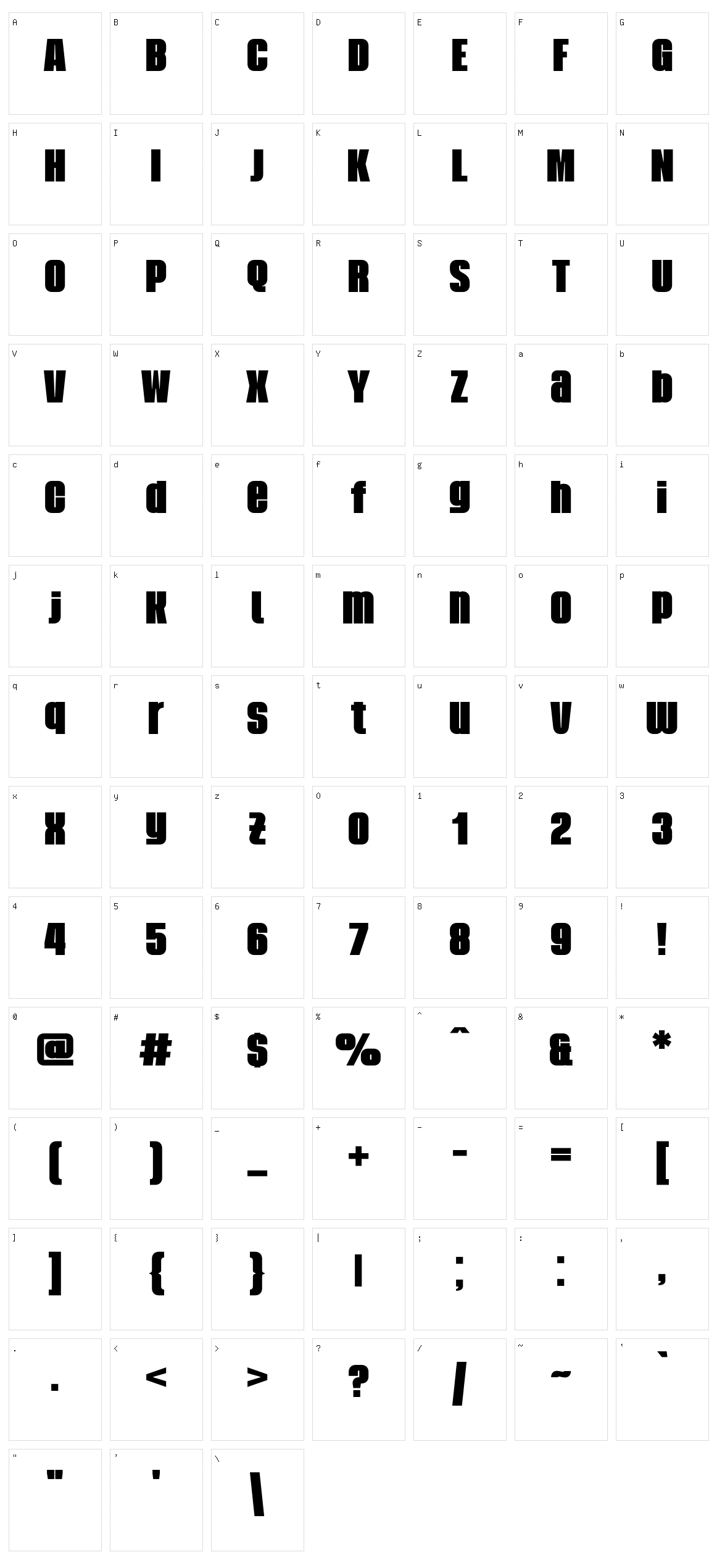
The free font Memesique is carefully designed by Harold Schumacher, showcasing a thoughtful balance of creativity and usability and falls under the Sans serif font style. When you download the ZIP file, it contains only 78 KB of font files, making it lightweight and quick to download. Please review the license details below to understand permitted usage and distribution rights. If license information is not available, we recommend using this font for personal projects only or contacting the author directly for commercial usage permissions.